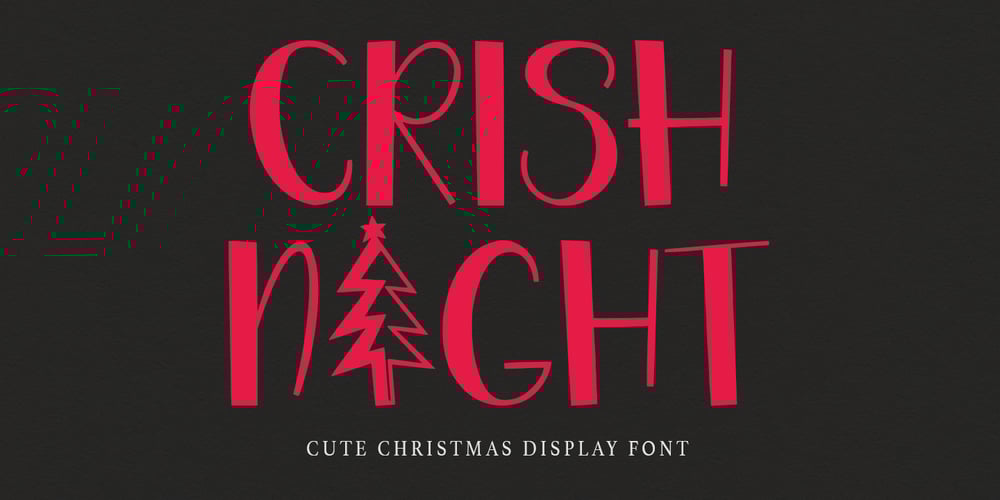
MC Crishnight
MC Crishnight font
MC Crishnight Font Family was designed by Gilang Maulana and published by Maulana Creative. MC Crishnight contains 1 styles and family package options. Crishnight is a christmas cute display font. With bold happy stroke, Upright and fun character. To give you an extra creative work. Crishnight font support multilingual language. This font is good for logo design, Social media, Movie Titles, Books Titles, a short text even a long text letter and good for your secondary text font with Script. Make a stunning work with Crishnight font.Cheers,Maulana Creative